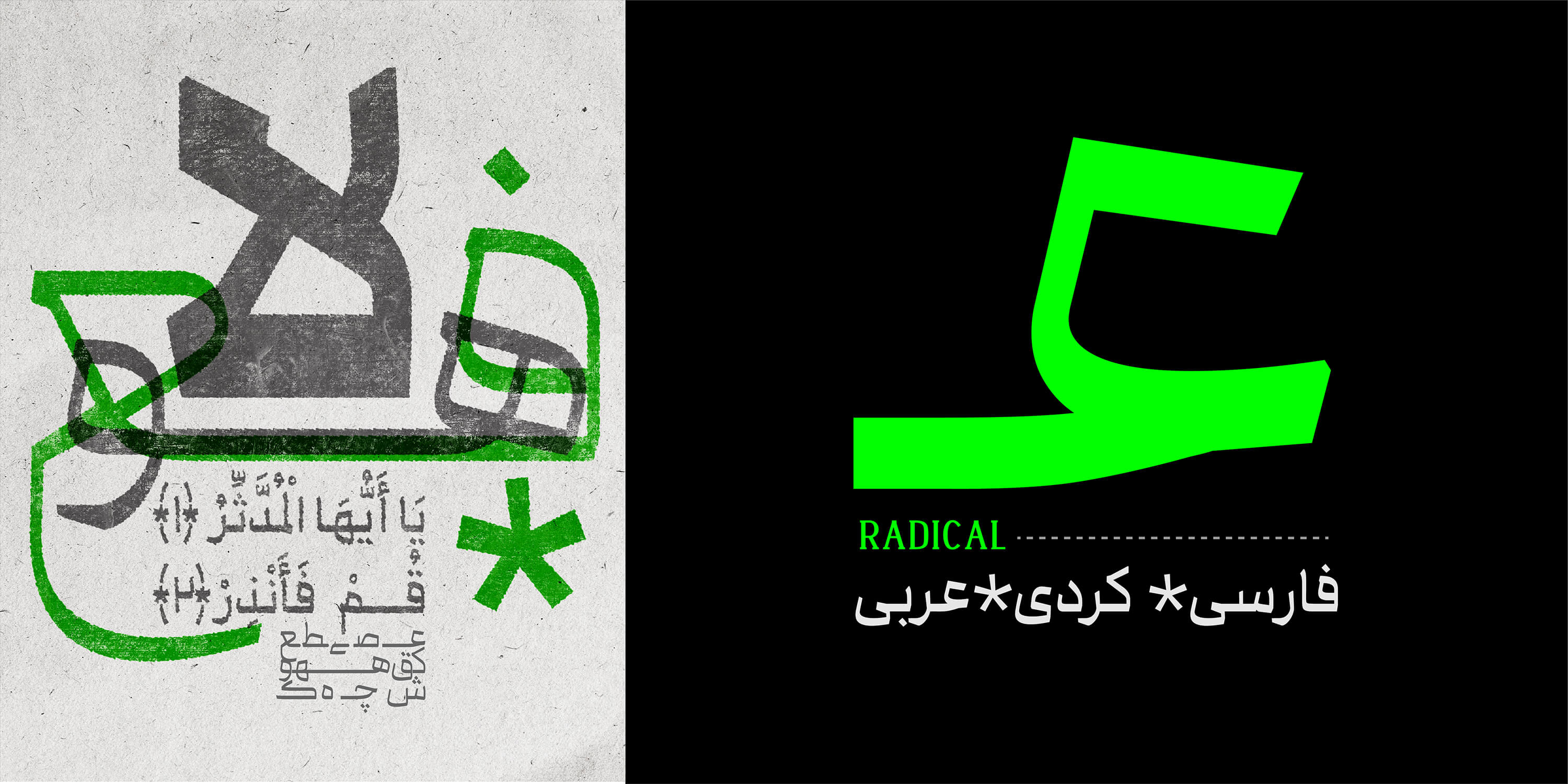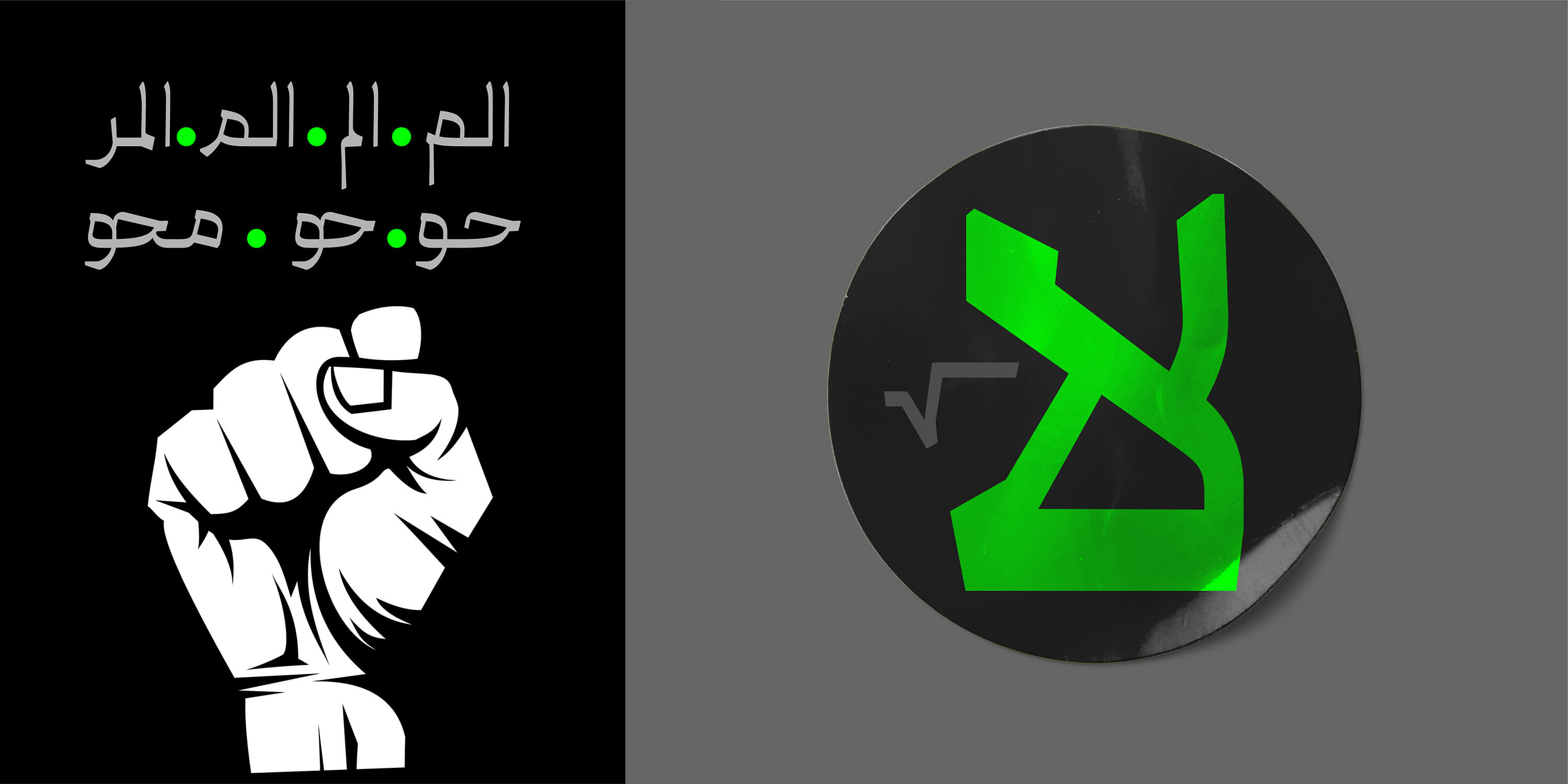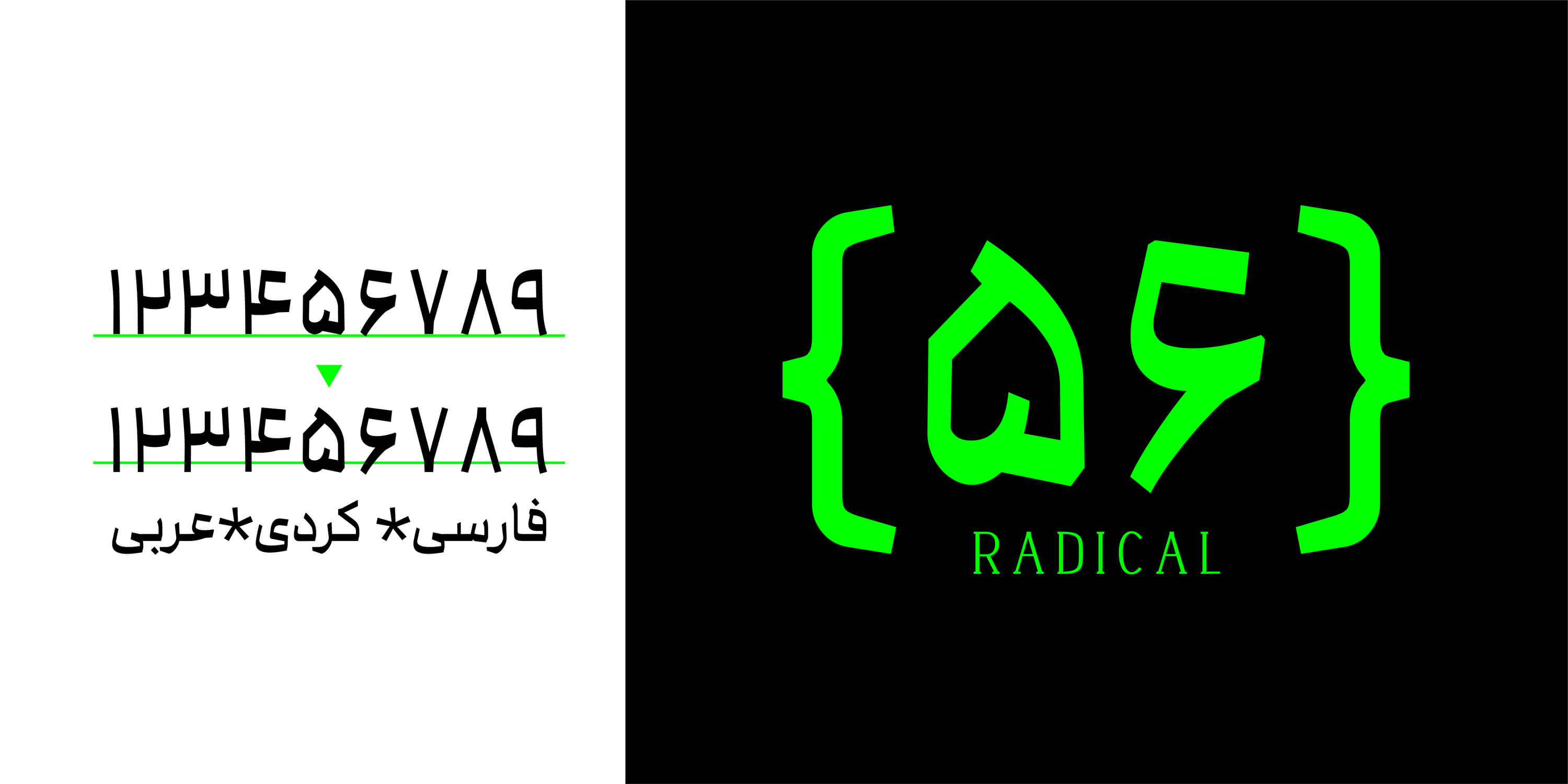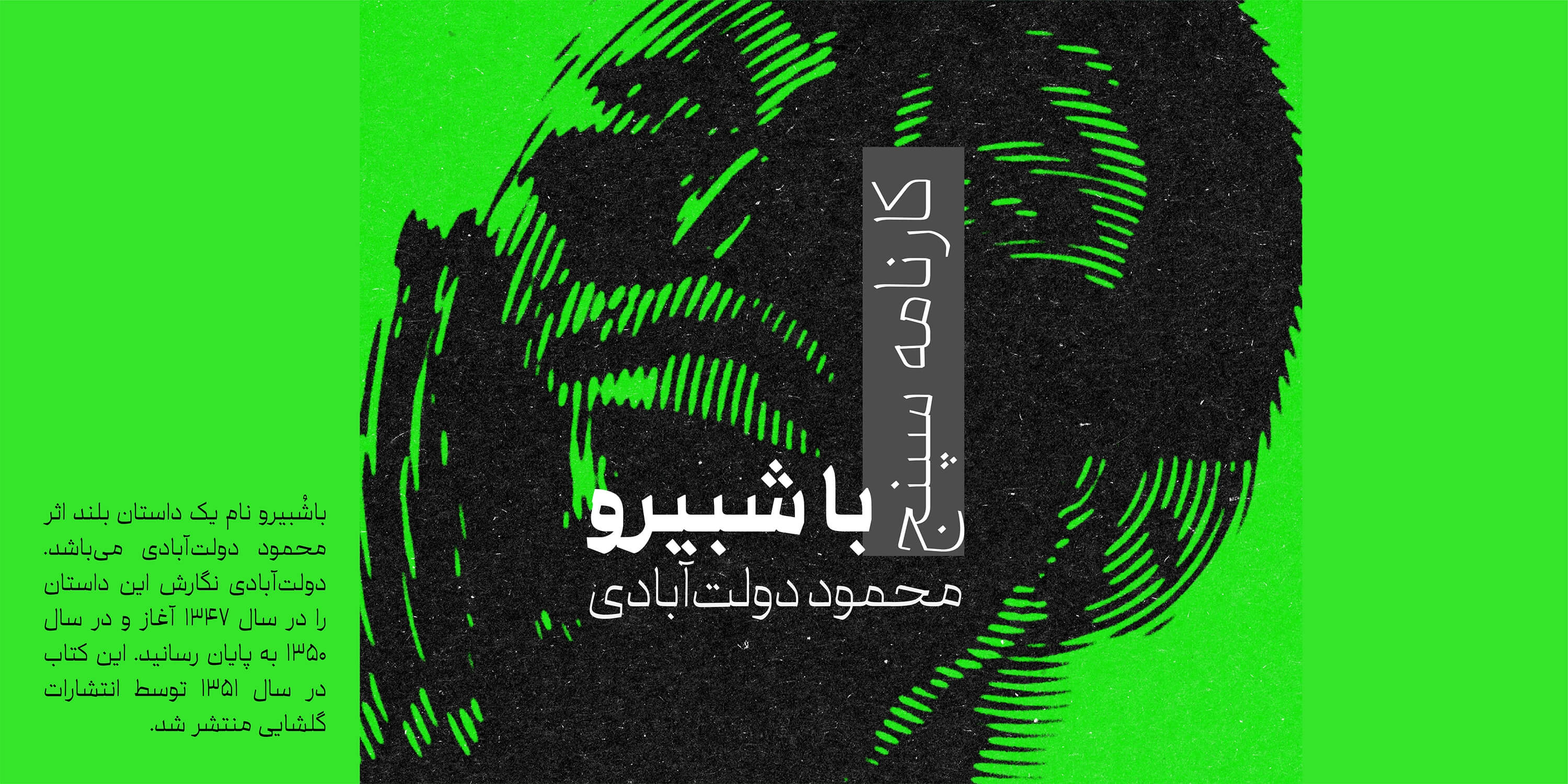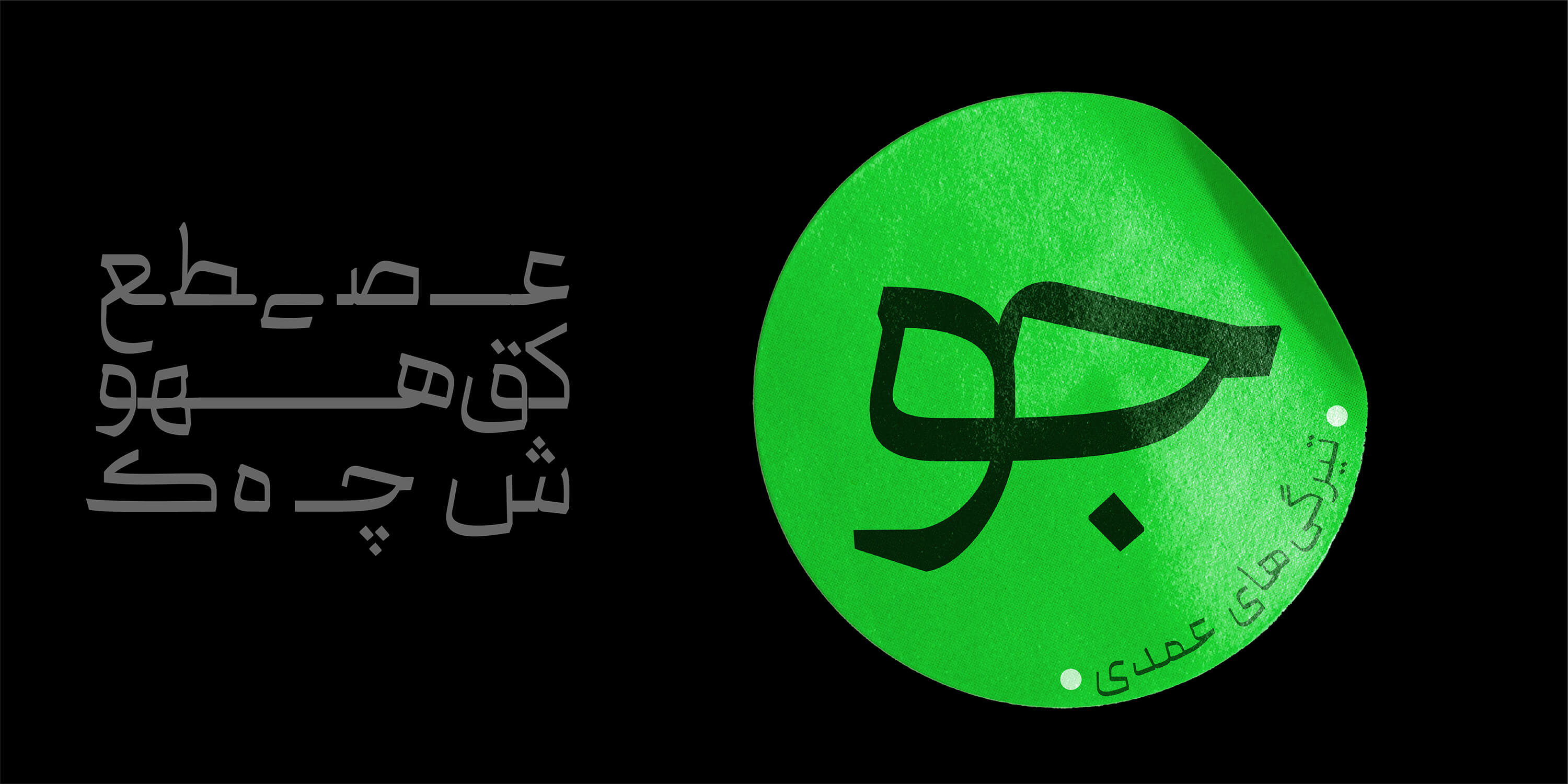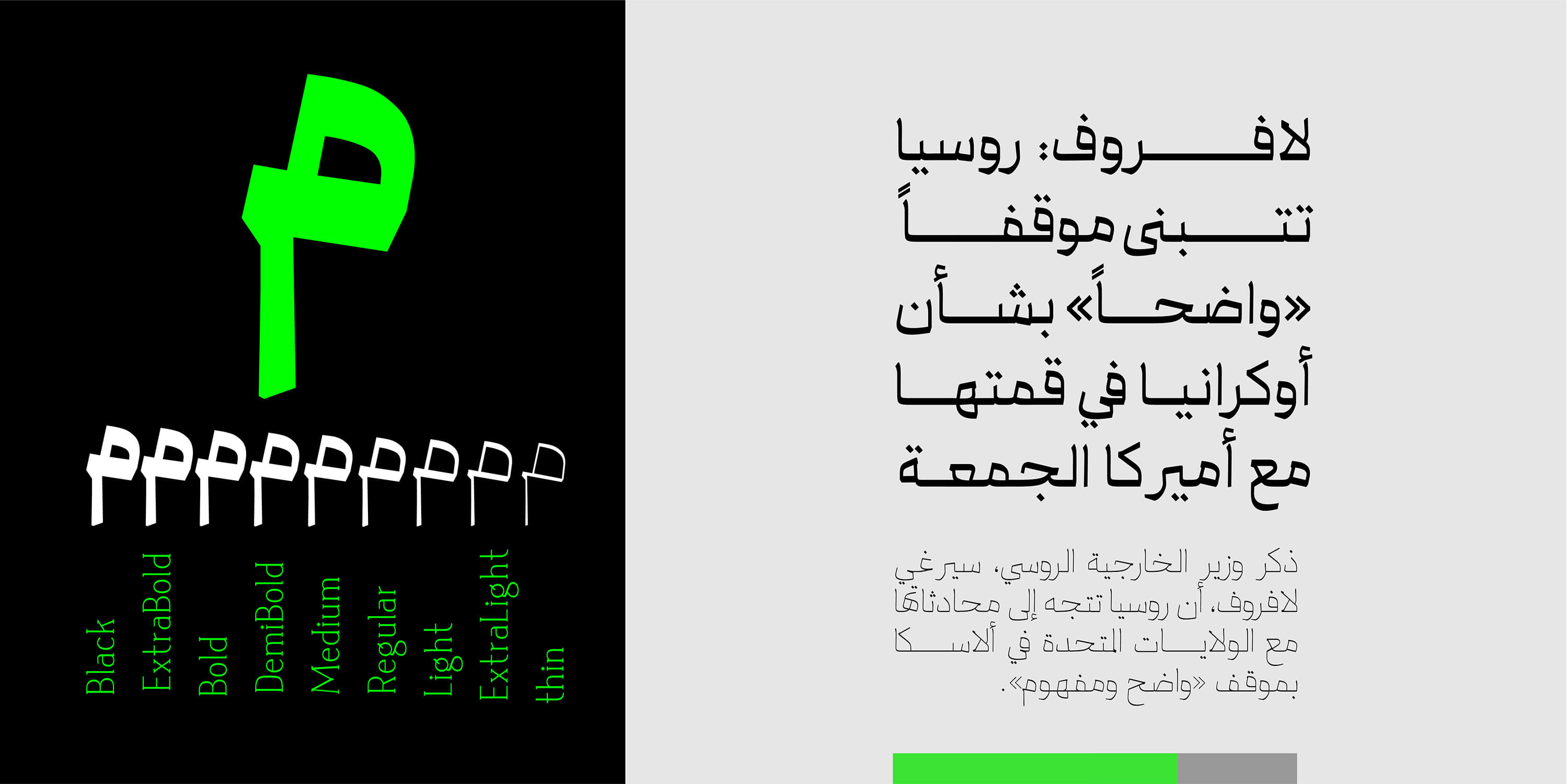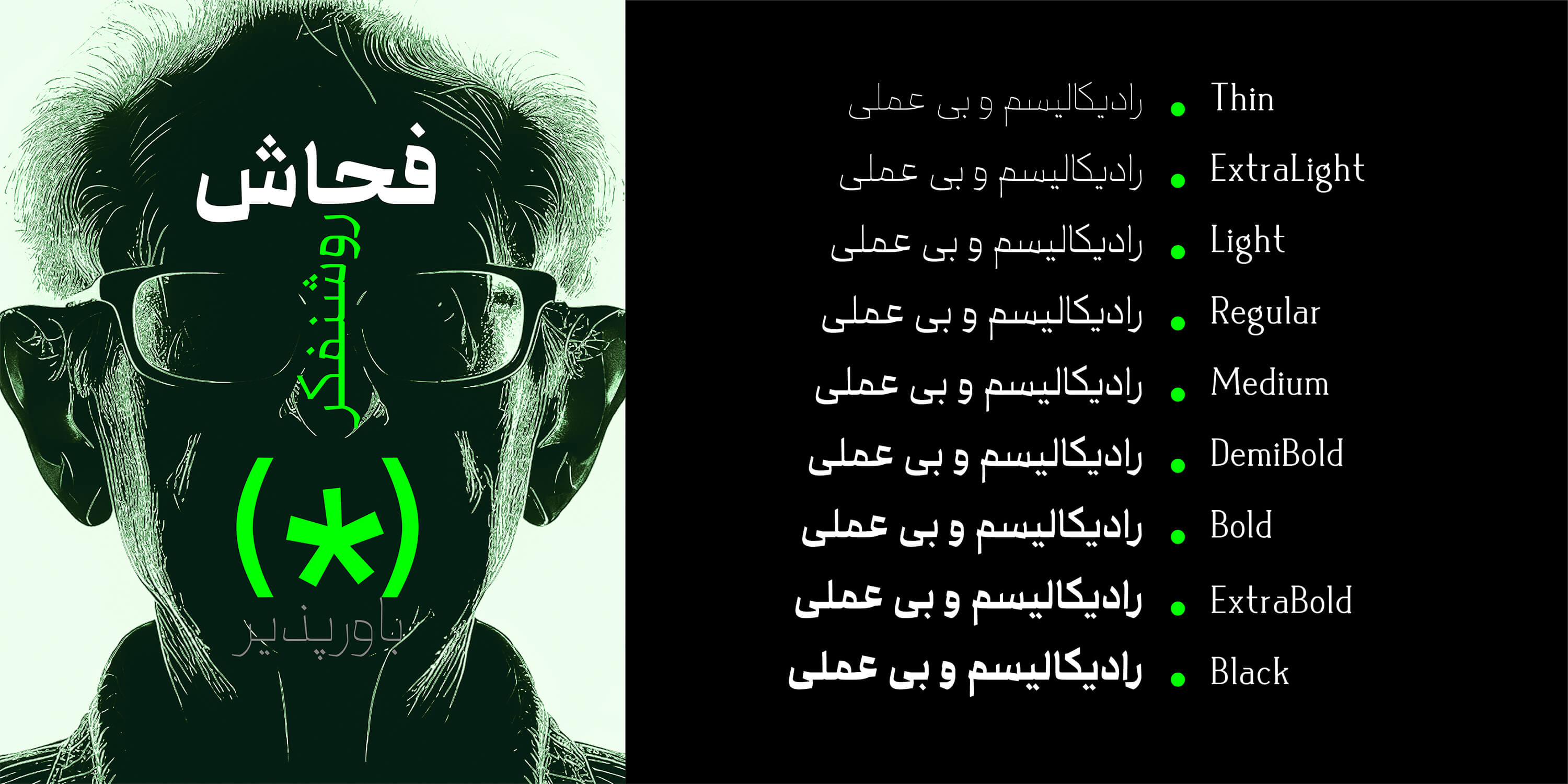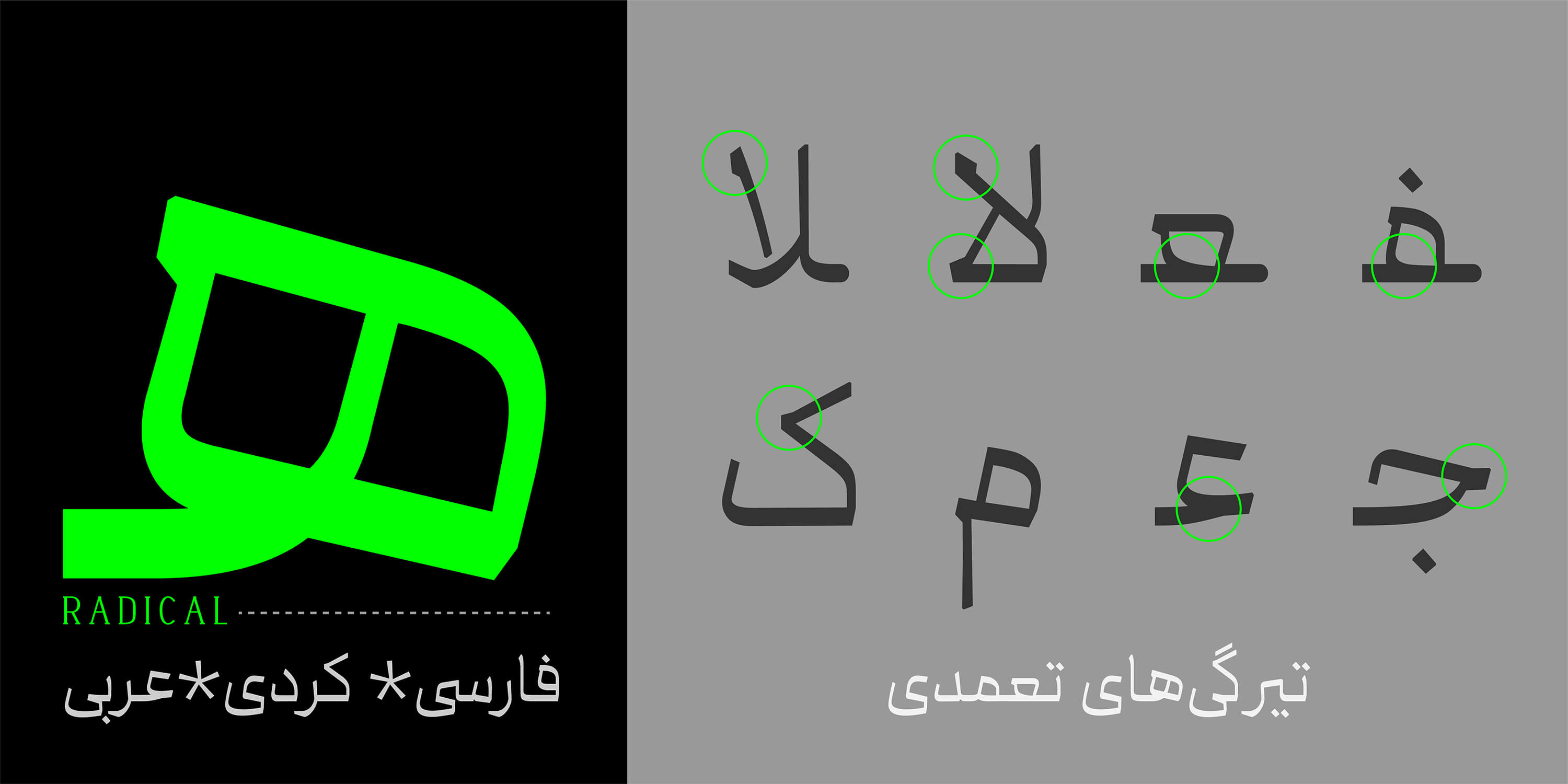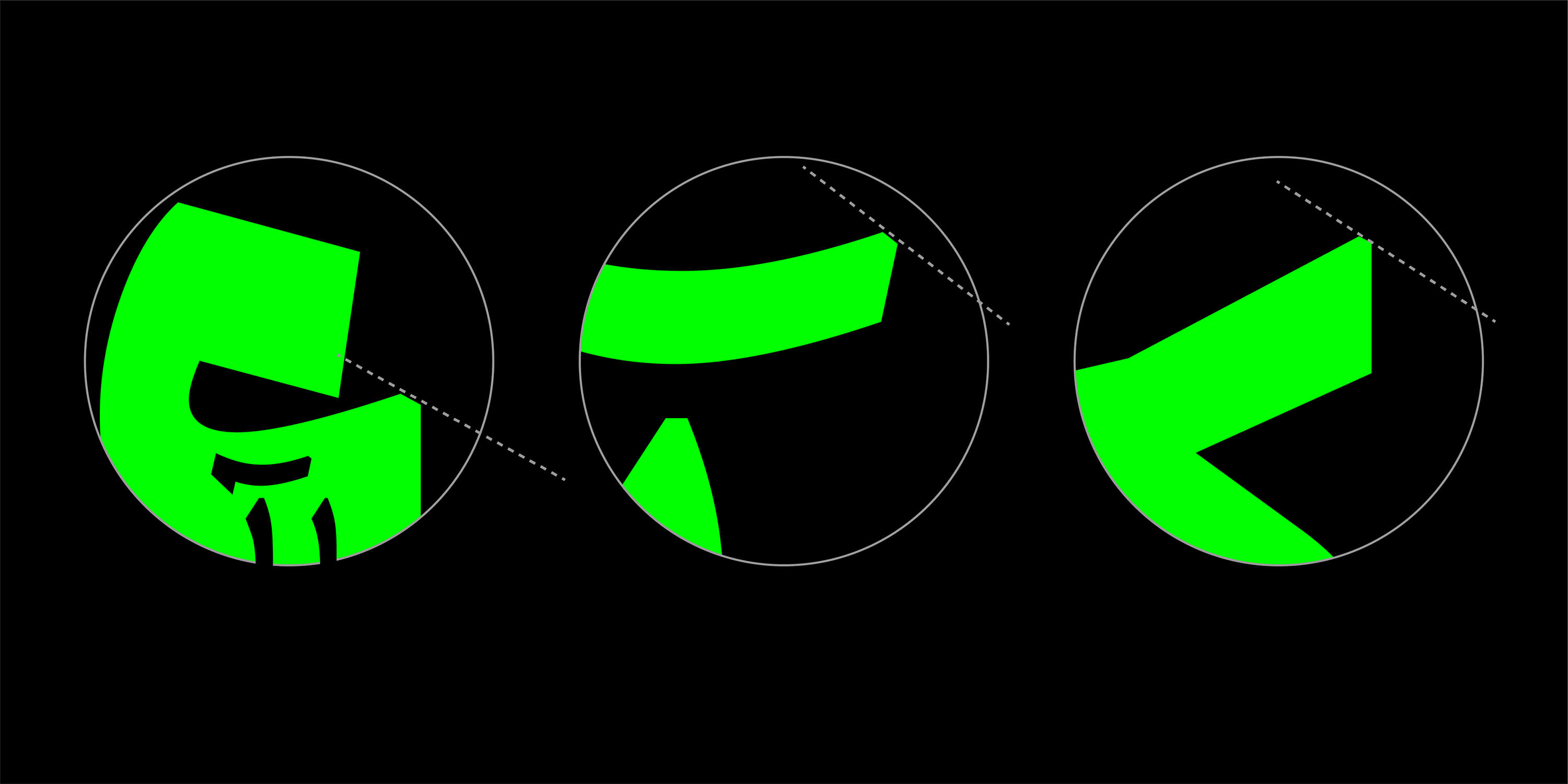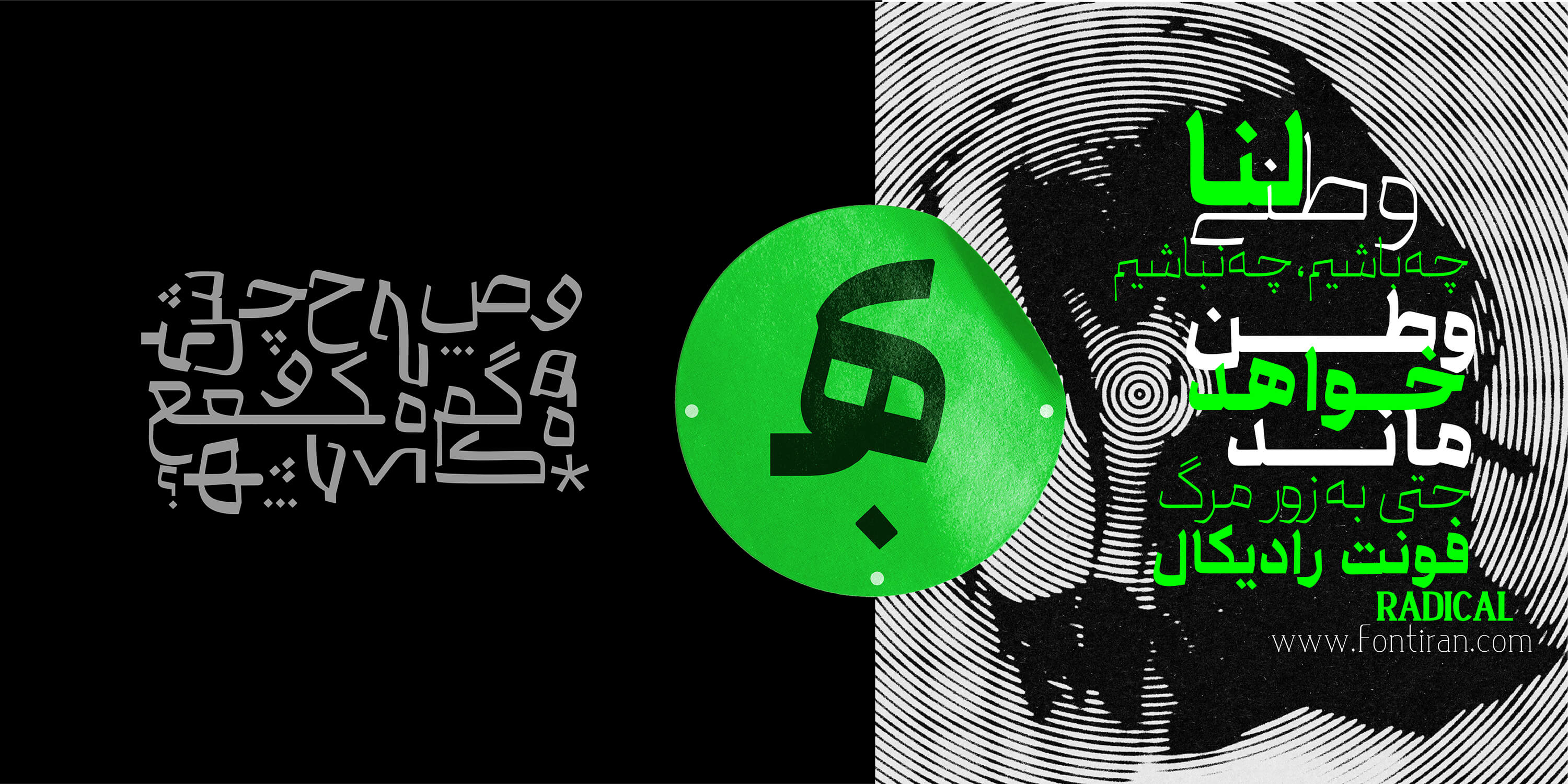
Radical
Radical font is a display font.
The body of the letters is almost twice the thickness of the usual font, as if keeping all the letters in the main line, but by moving away from it, the strokes of the pen become freer and more radical.
Creating intentional darkness and even unusual thicknesses are among the features of Radical that make it unique and also distinguish it.
Radical's tone is explicit, serious and straightforward that gets straight to the point.
Any word can be exposed with it.
The initial version of this font is available in 9 weights:
Thin-Extralight-Light-Regular-Medium-DemiBold-Bold-ExtraBold-Black
Persian , Arabic , Kurdish